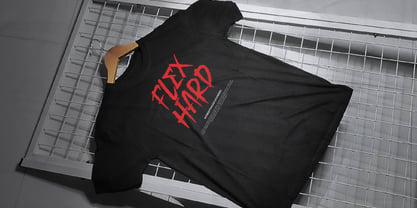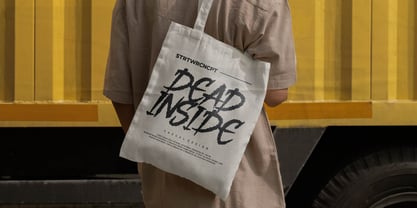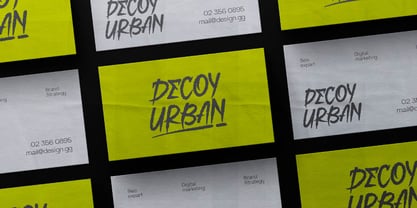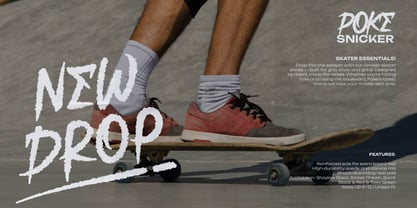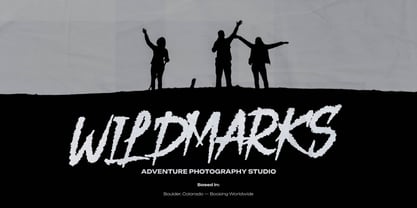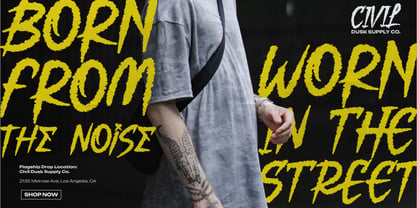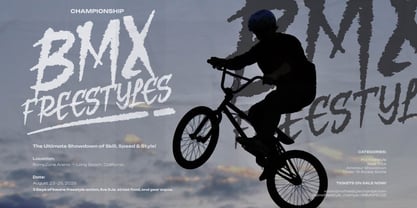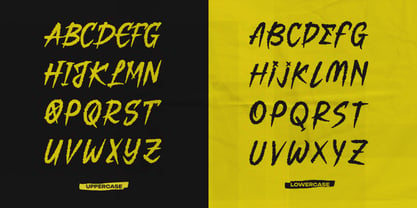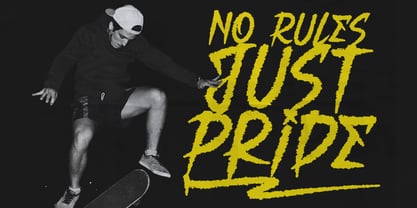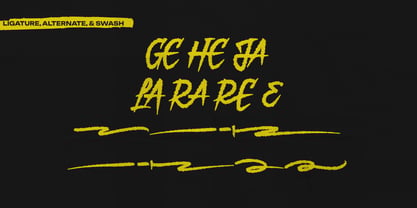
Noise Plays
by Tini Fitriani
The Noise Plays Font Family was designed by and published by Tini Fitriani. Noise Plays contains 2 styles and family package options. More about this family
Noise Plays | Hand Drawn Brush, from Gracetypestudio, suitable for any projects such as: logos, branding projects, homeware designs, product packaging, mugs, quotes, posters, shopping bags, t-shirts, book covers, name card, invitation cards, greeting cards, label, photography, watermark, special events, and all your other lovely projects that need a Hand Drawn Brush taste.
• Regular and Italic
• Alternate and Ligature